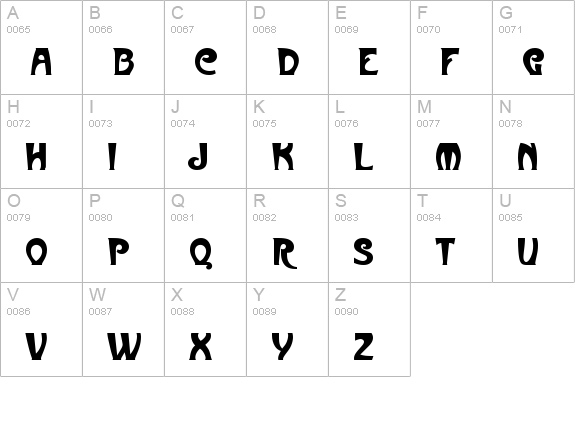
MetropolitainesD is a modern and stylish font that exudes elegance and sophistication. With its clean lines and sleek design, this font is perfect for a wide range of design projects, from branding to packaging to web design. The unique letterforms of MetropolitainesD make it stand out and capture attention, while still maintaining a sense of professionalism. What's even better is that MetropolitainesD is completely free to download at FontsMarket.com. This means that you can add this stunning font to your collection without any cost, making it an excellent choice for both personal and commercial use. Don't miss out on the opportunity to enhance your designs with the beauty of MetropolitainesD - download it for free today!